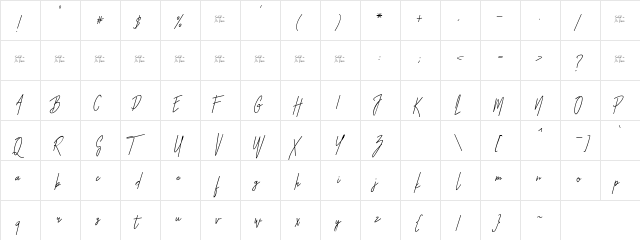
Otella Regular
| Foundry | Khurasan |
| Designer | Khurasan |
Design Context for Otella Typeface
Otella is a composed and adaptable typeface that performs quietly and consistently across a wide range of design contexts.